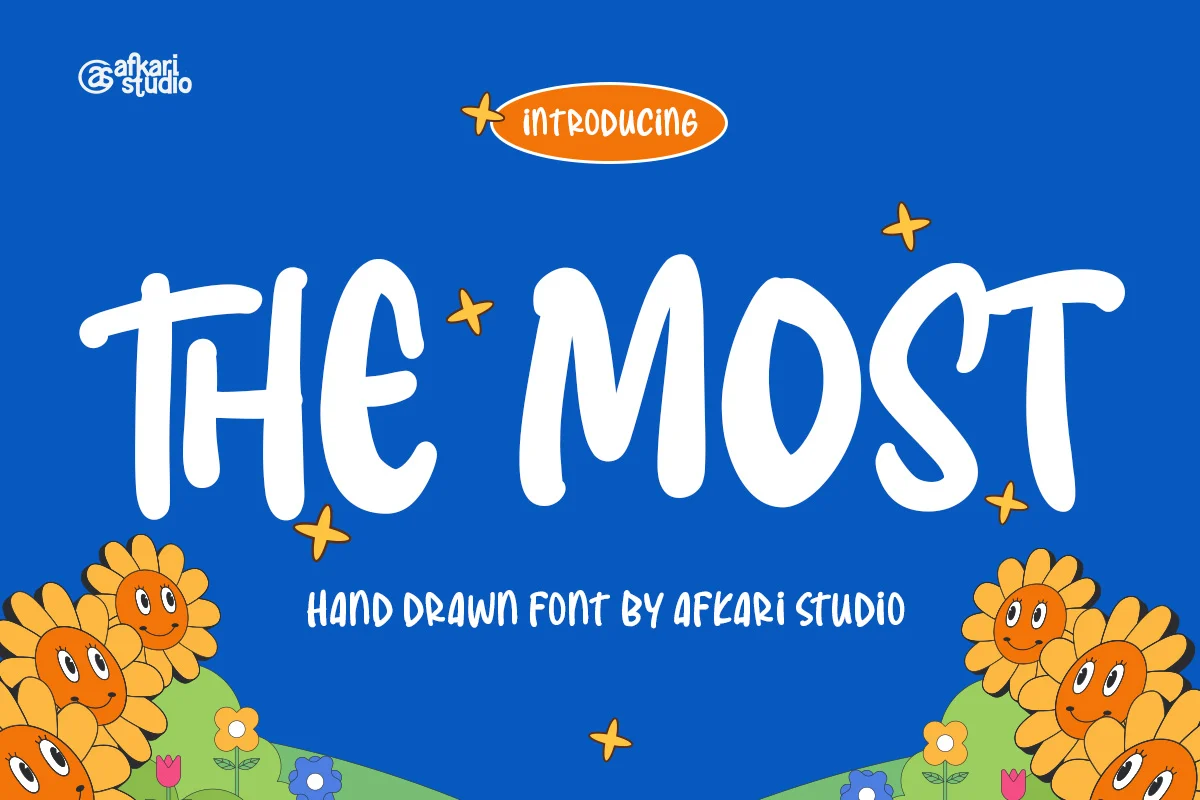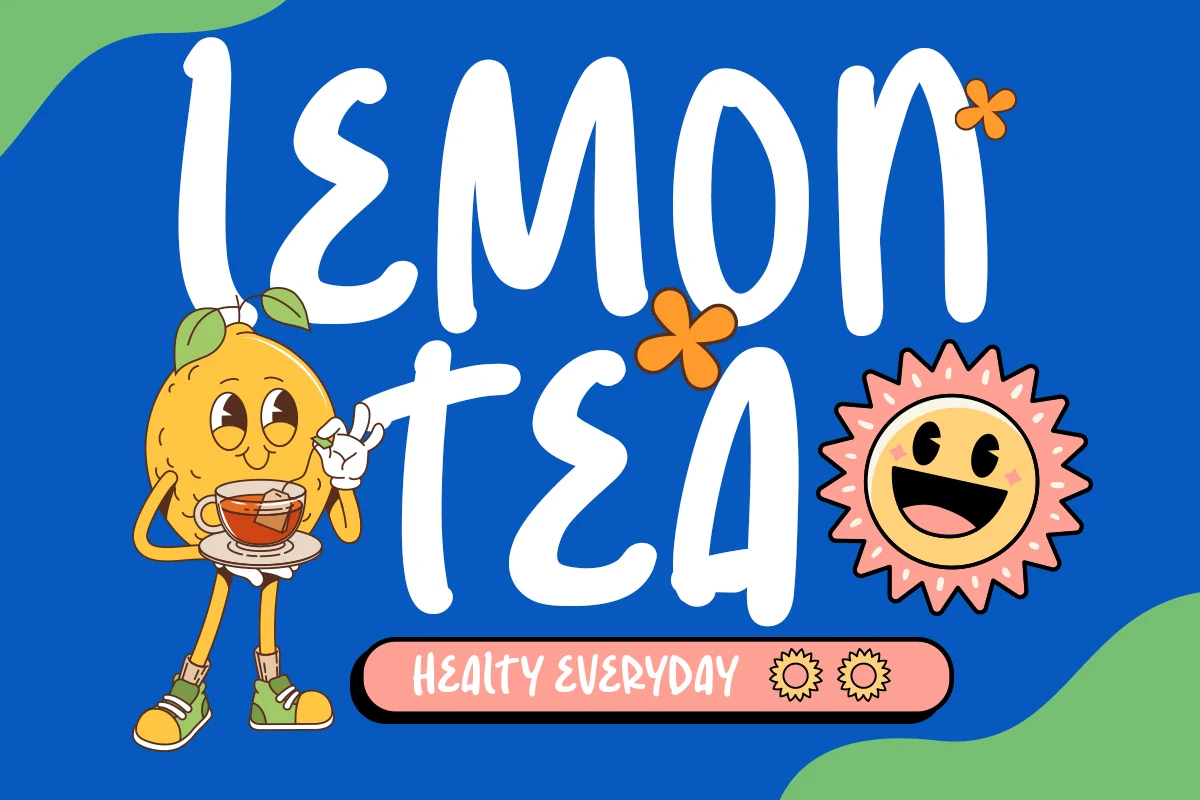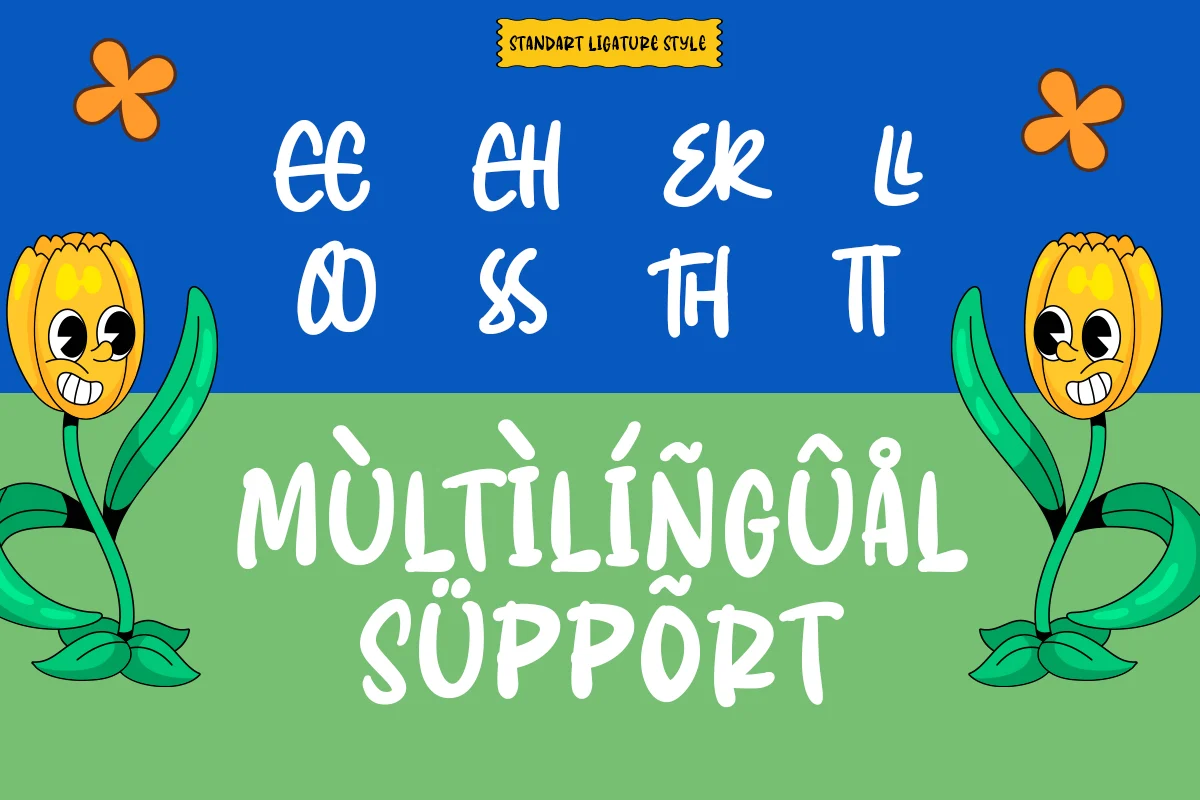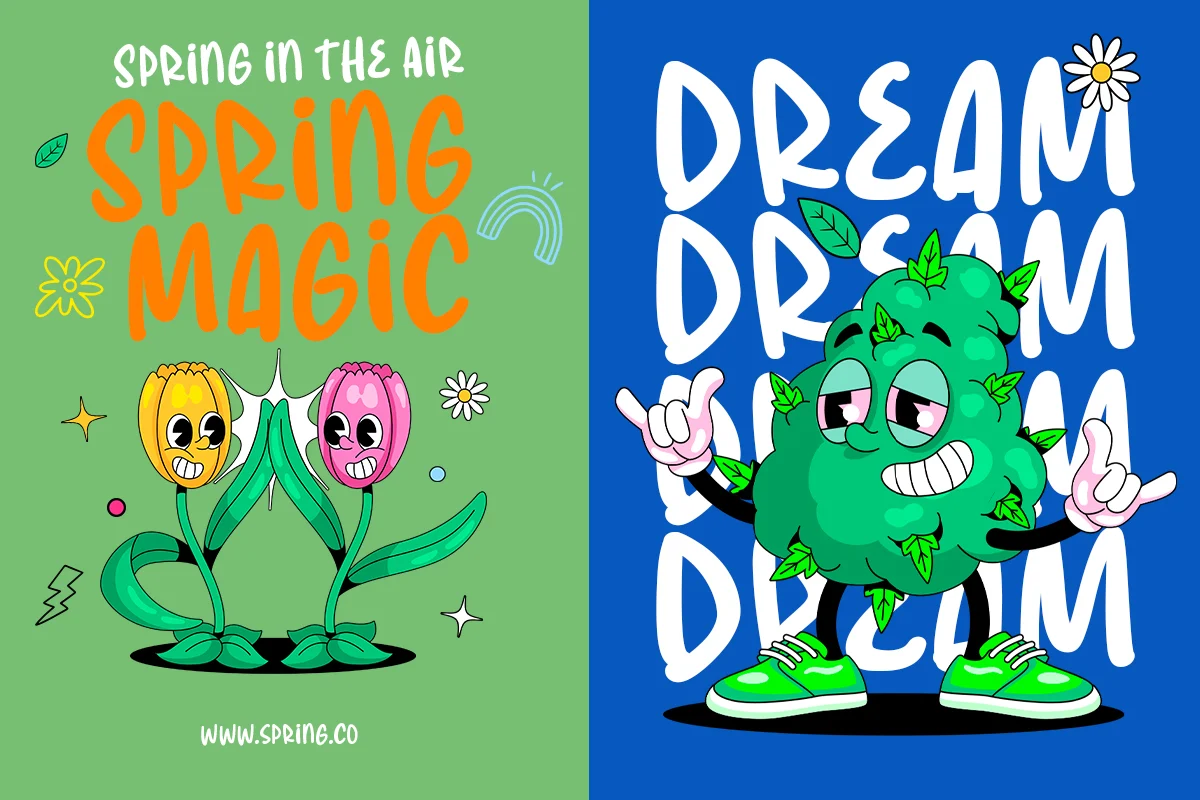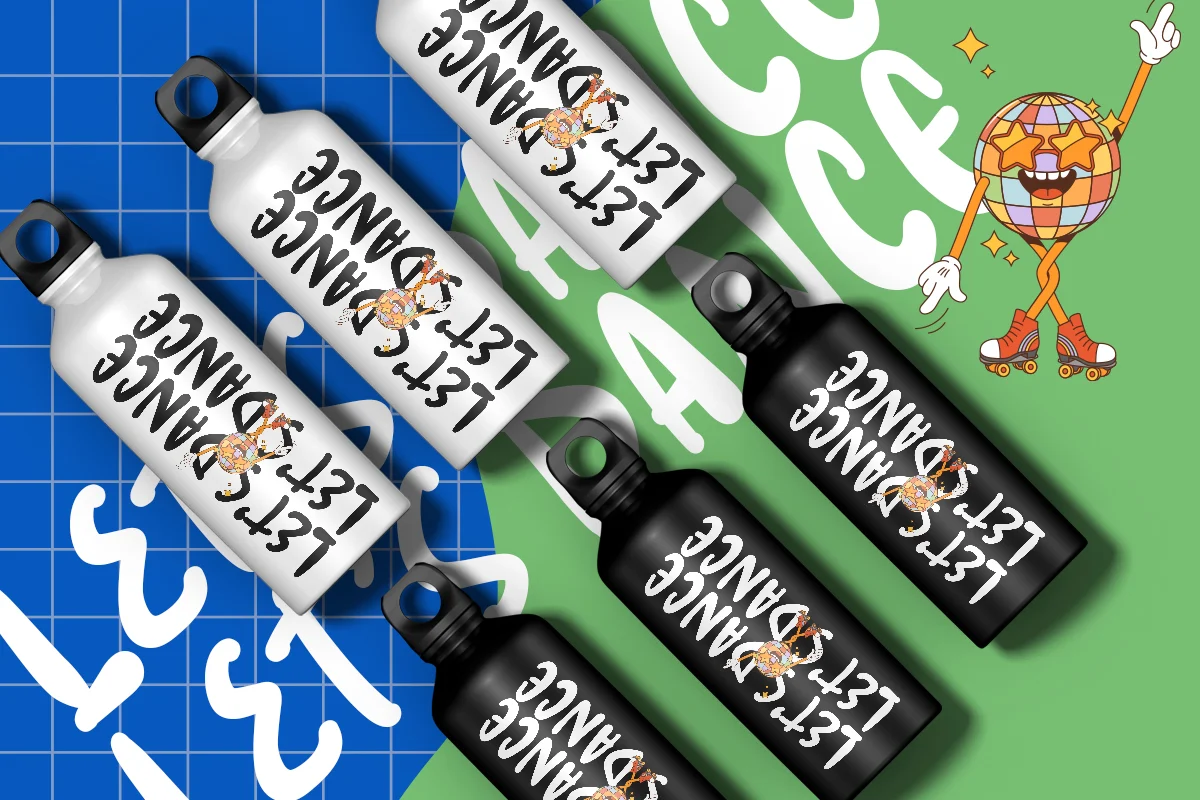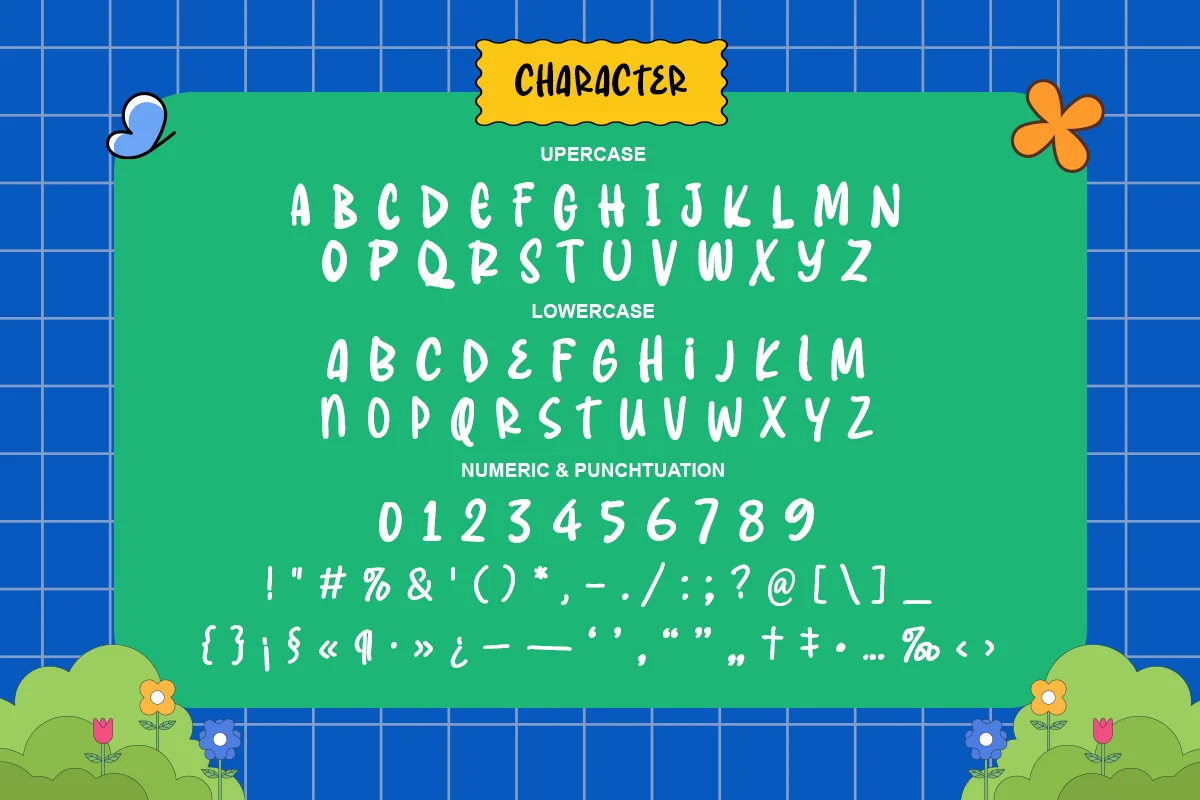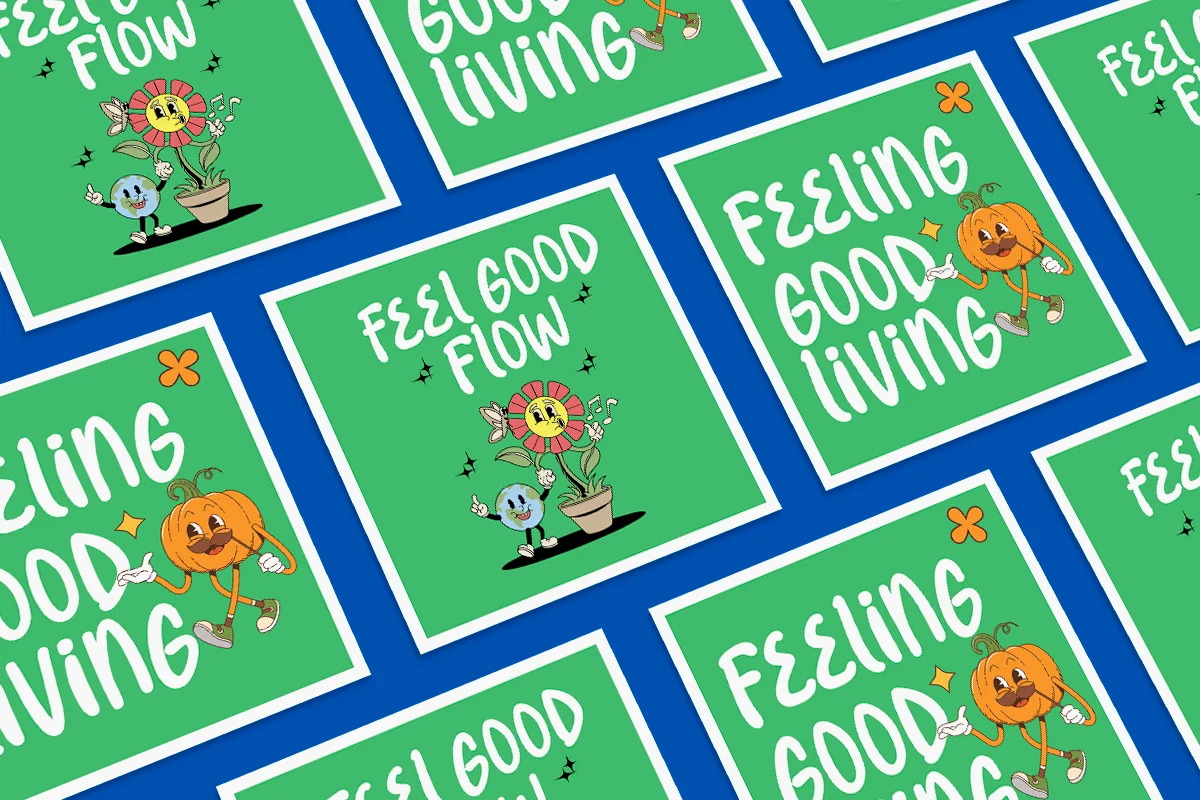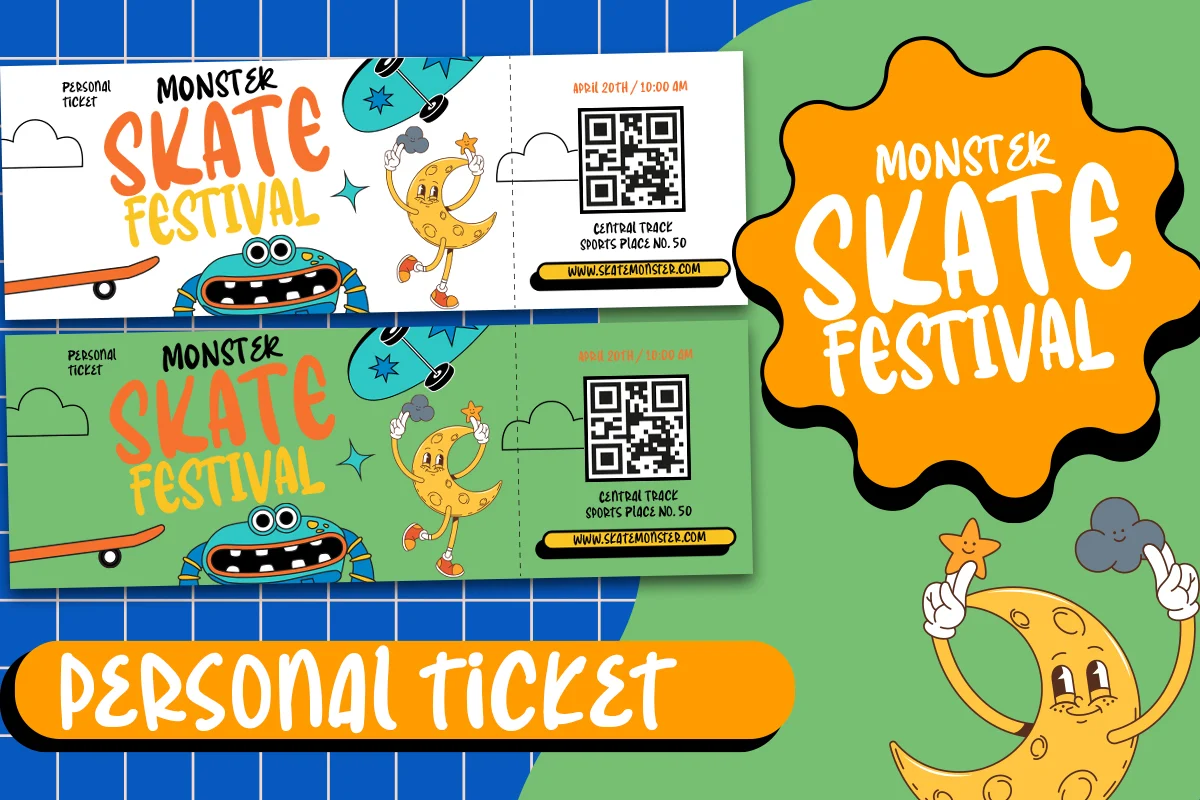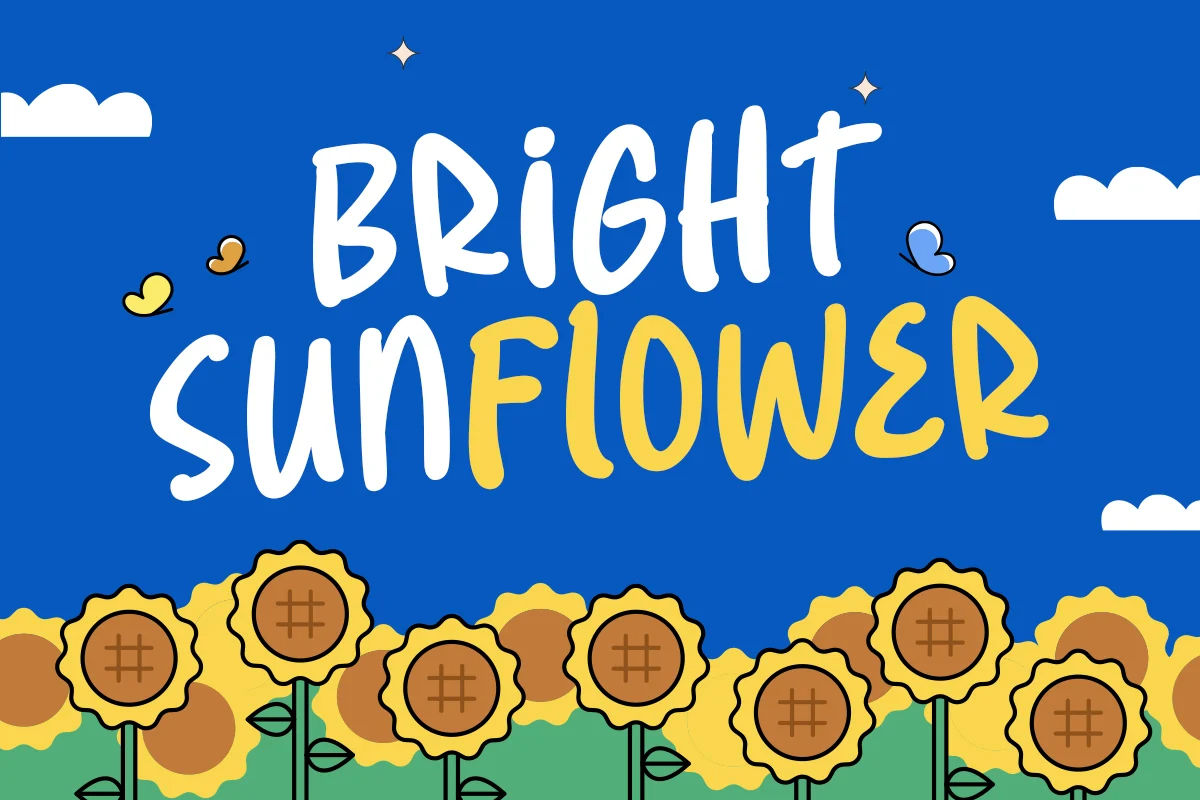
The Most - Handwritten Display Font
The Most is a bold handwritten display font crafted to bring expressive, natural, and eye-catching character to your creative projects. Inspired by confident handwritten strokes, this font delivers an organic and energetic look that feels both modern and personal.
Designed to stand out in headlines and creative layouts, The Most combines casual handwritten flow with strong readability, making it perfect for designs that need a human touch while remaining impactful and stylish.
Whether used for branding, posters, social media, or merchandise, this font adds warmth and personality to both digital and print designs.
• Uppercase & lowercase letters
• Numbers & punctuation
• Alternates & ligatures included
• Mültîlíñgúãl Sùppört for; ä ö ü Ä Ö Ü ß ¿ ¡
Bring expressive personality and natural handwritten energy to your designs with The Most – Handwritten Display Font.